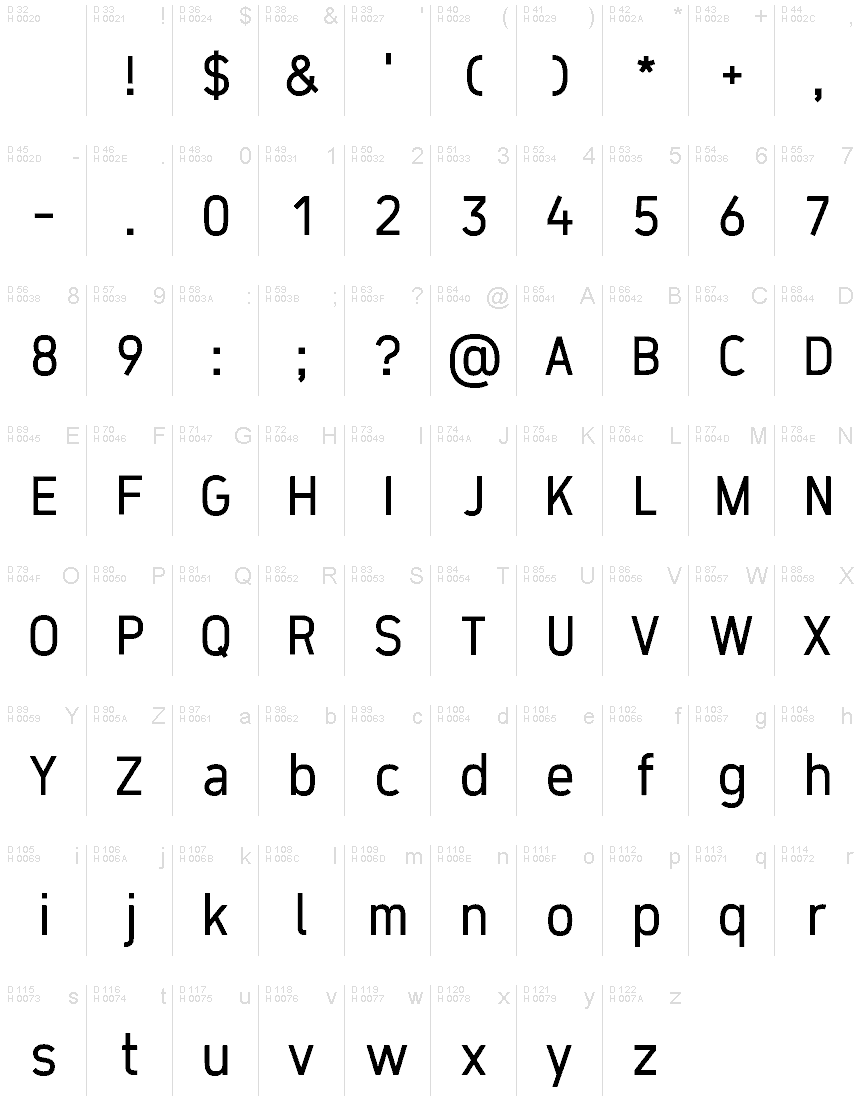
ZF2334 That's All Right
ZF2334 That's All Right font is a free sans serif font designed by Salim Zouaghi. Modern, clean, and professional; the typeface displays medium weight and upright structure. Letters have a balanced stroke thickness and consistent proportions that give the font its neutral flowing look.
Exceptional uses: flyers, posters, banners, logotypes, typography art, book covers or pages (printed & electronic), magazines (front cover or internal pages), social media captions & posts, screen design such as websites and apps.